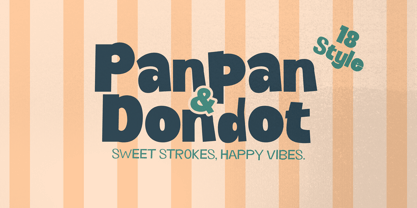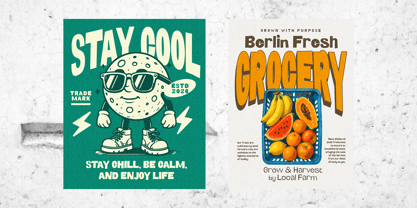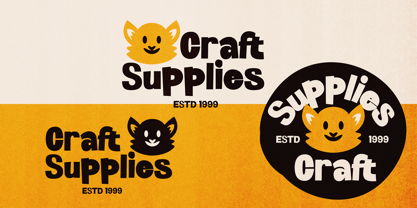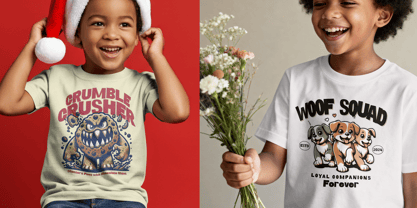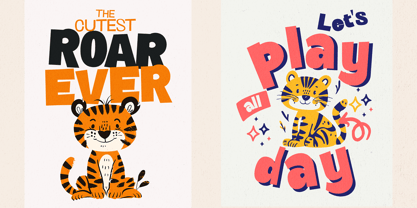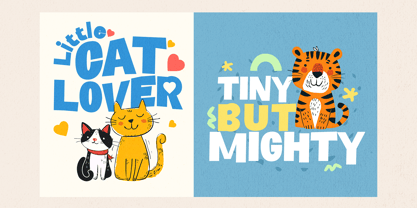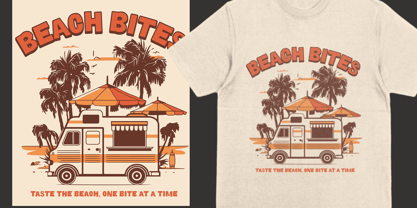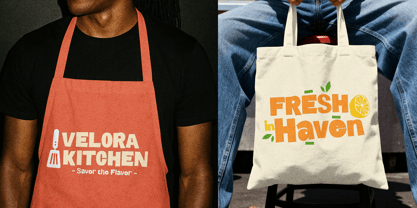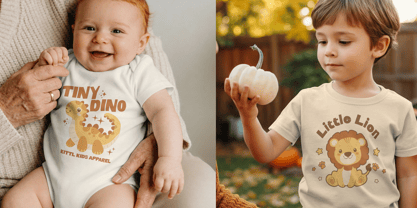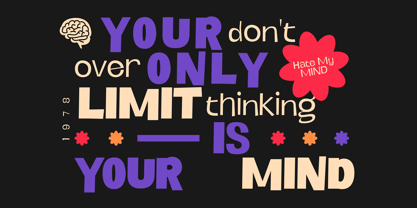
Panpan and Dondot
by MysticalType
The Panpan and Dondot Font Family was designed by Candi Erwanto and published by MysticalType. Panpan and Dondot contains 18 styles and family package options. More about this family
Introducing Panpan and Dondot, a bold, chubby, and rounded display font ready to bring a cheerful and playful touch to all your creations. Inspired by casual cartoon visual styles, this font is here to bring your designs to life through its highly expressive and energetic character.
Every letter in this font is intentionally designed with uneven proportions, appearing slightly tilted and wavy. Coupled with edges that aren't perfectly straight, Panpan and Dondot delivers an authentic feel reminiscent of hand-drawn lettering or paper cutout art. The tight letter spacing further reinforces the dense and chunky impression, making your words stand out and look more organic.
To give you maximum creative freedom, this collection comes with 18 style options that include both normal and italic variations. This wide range of options makes it easy for you to experiment and mix typographic styles, allowing you to create dynamic visual hierarchies in any project.
As a display font, Panpan and Dondot is absolutely perfect for artworks featuring playful, cartoonish, quirky, retro pop, organic, and even kawaii visual styles. Because of its thick and bold character, this font is highly recommended for:
• Product packaging design, especially for snacks, cereals, or toys.
• Children's storybooks and educational materials that require a friendly and interactive vibe.
• Branding and logo design for casual businesses that want to appear cheerful and memorable.
• Creative merchandise design such as typography on t-shirts, stickers, or tote bags.
• Digital content needs like YouTube thumbnails, TikTok videos, and event poster titles.